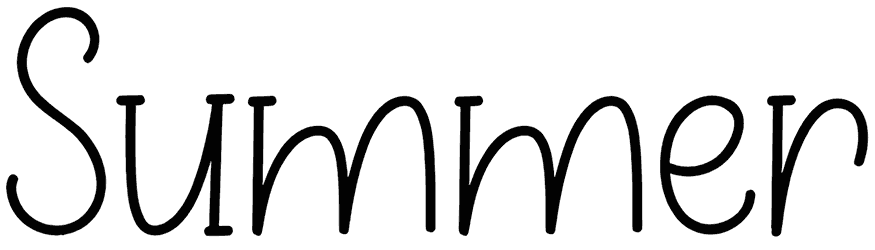
Summer Font
Summer is one of the script fonts that encourages designers to pick it up at first glance. The letters’ simplicity can easily gain the audience’s trust and prepare their minds to get to know you better.
This summer font can be used in all projects that require a close human connection and remain deep in the mind. So if you want to design a timeless poster or wanna make computer game displays for all ages, Summer is for you.